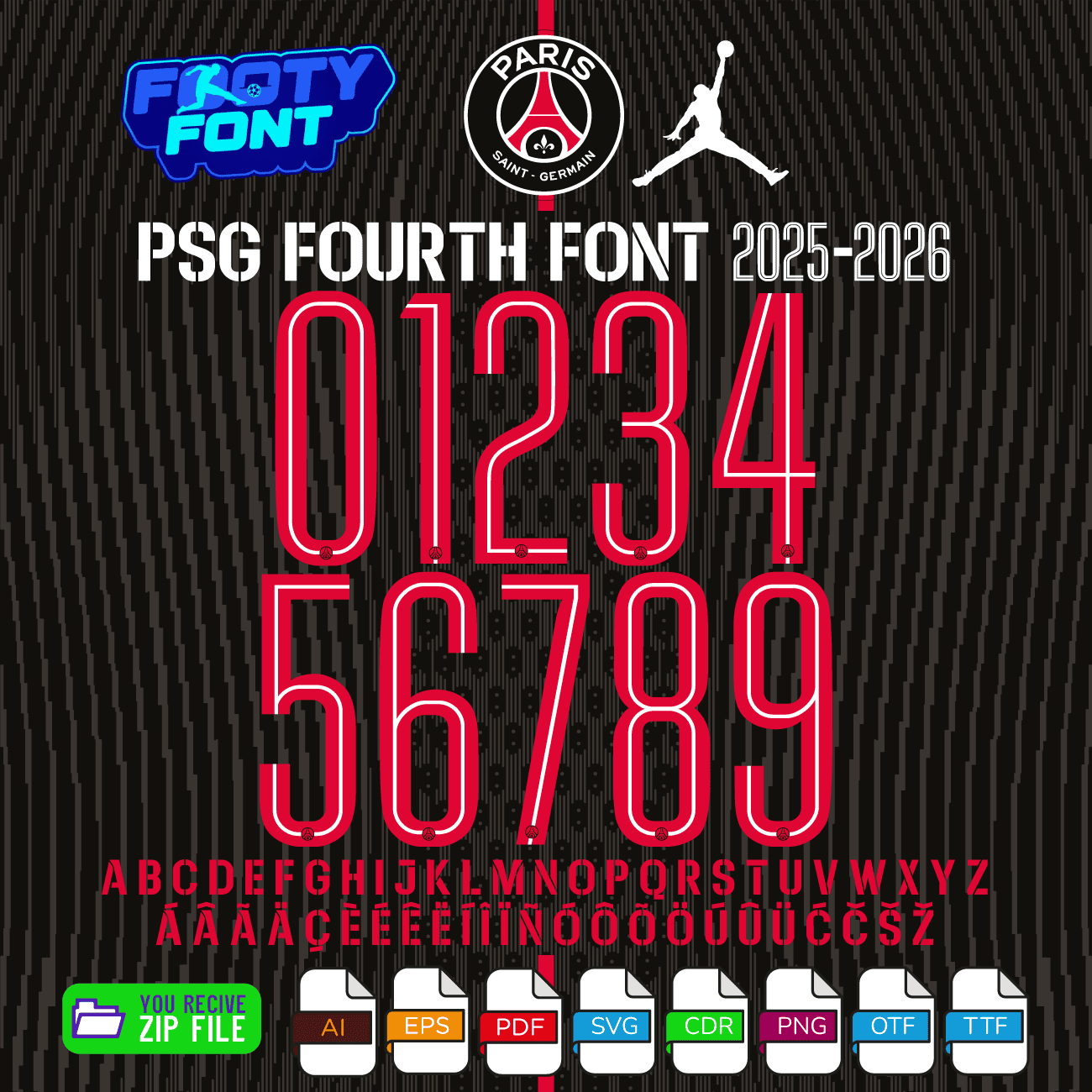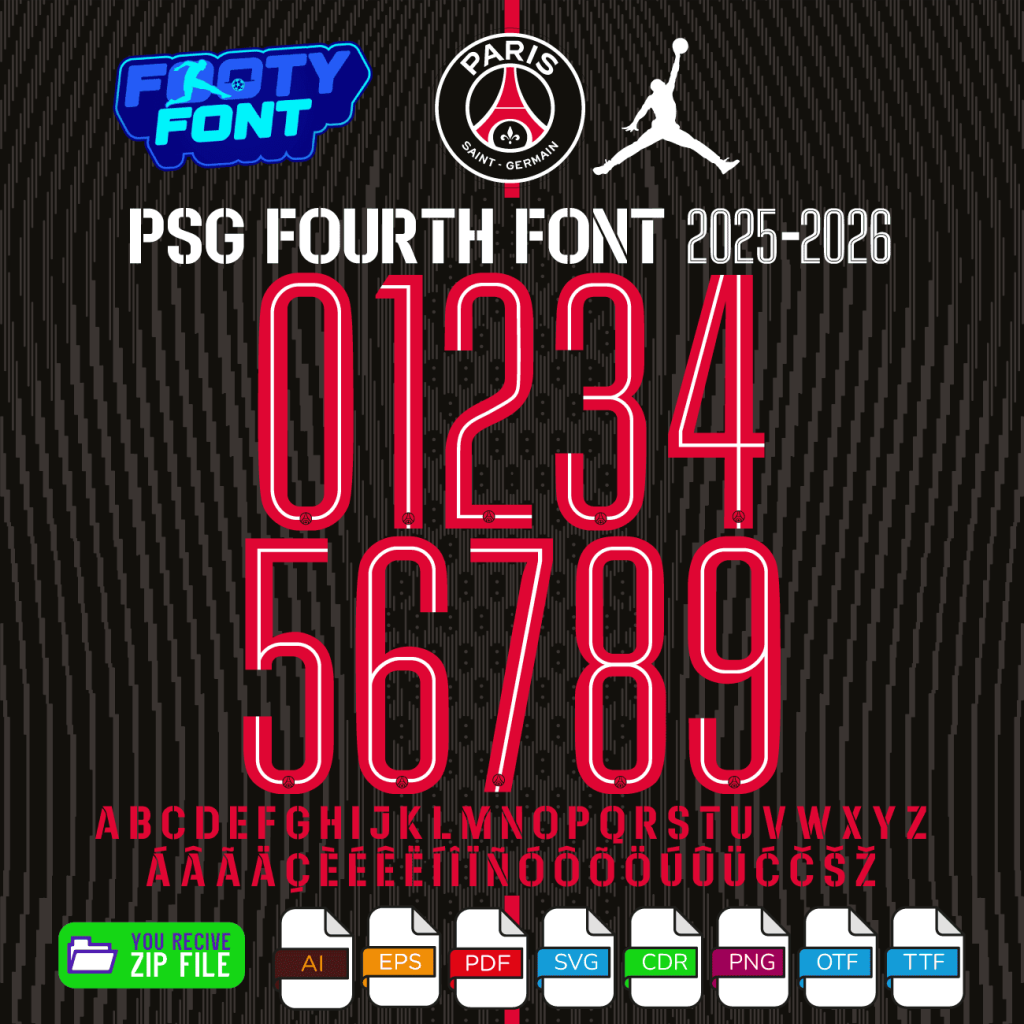
PSG Fourth UCL Font Download 2025-2026 Capture the ultimate fusion of football, UCL nights, and high fashion with this PSG Fourth UCL Font Download 2025-2026. This premium typeface is inspired by the Paris Saint‑Germain 2025-2026 fourth kit by Jordan Brand, echoing the sleek “Off Noir” look with its bold central red stripe and unique pink accents. Designed to mirror the style worn by PSG superstars like Vitinha 17, Ousmane Dembélé, Achraf Hakimi, and Warren Zaïre‑Emery, this font is perfect for custom Champions League jersey designs, digital art, and posters that celebrate the PSG x Jordan collaboration. What You’ll Get Complete Font Package (PSG 2025-2026 Fourth UCL Kit)